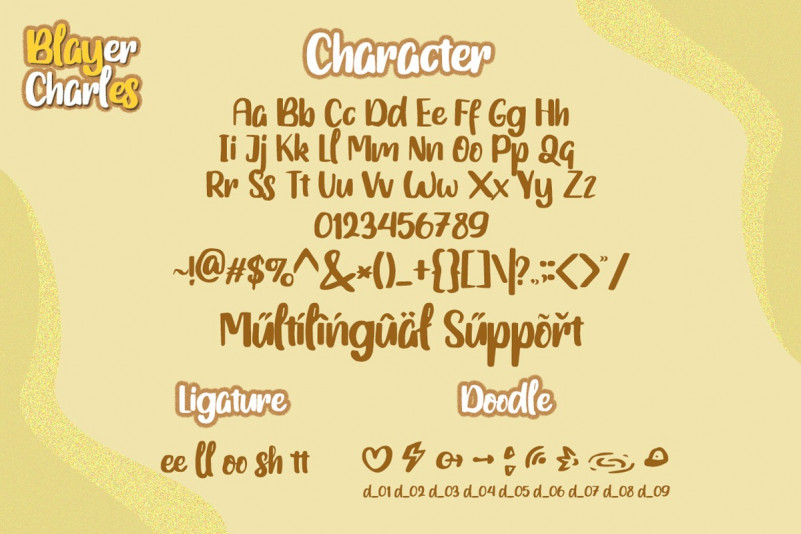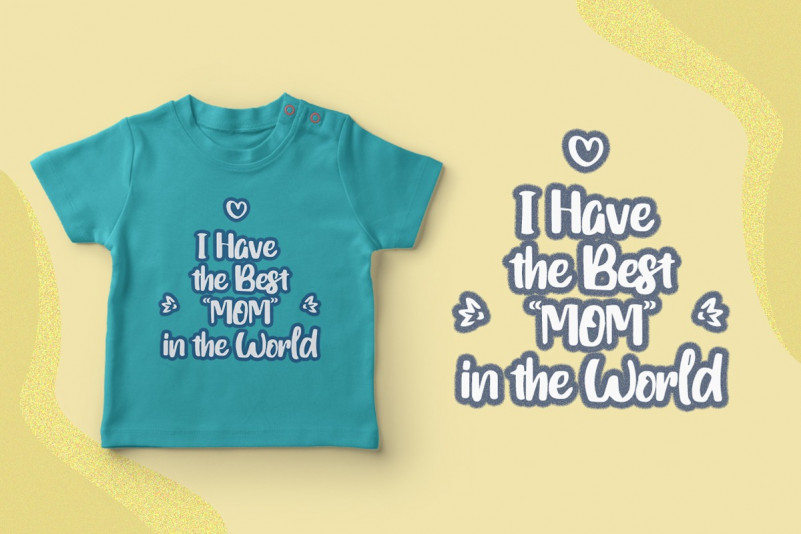
Blayer Charles – Playful Font
Hello Guys, This is a fun and youthful font, With a playful and whimsical feel, It’s great for your crafts, logos, and other graphic design projects. It’s a perfect complement to your font collection. Introducing Blayer Charles Playful Font. It’s a gorgeous and playful script with a unique vibe. Get inspired by its whimsical charm! This is is perfect for branding projects, logo, wedding designs, social media posts, advertisements, product packaging, product designs, label, photography, watermark, invitation, stationery and any projects.